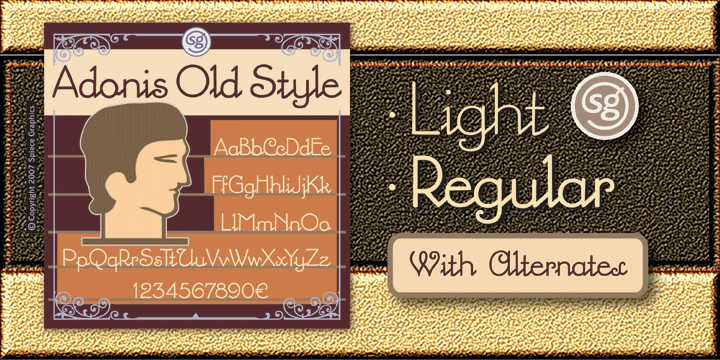
Willard T. Sniffin deserves the credit for this charming little stationery and greeting card typeface developed for American Type Founders in 1930. Capital letters show an occasional hint of ornamentation and lowercase letters are of the linking variety. The original set of exquisite alternate characters (A,B,G,T,V, W, o, s) has been included in this digital version.
Adonis Old Style is ideal where a 1920s or 30s script-like lettering look is required.